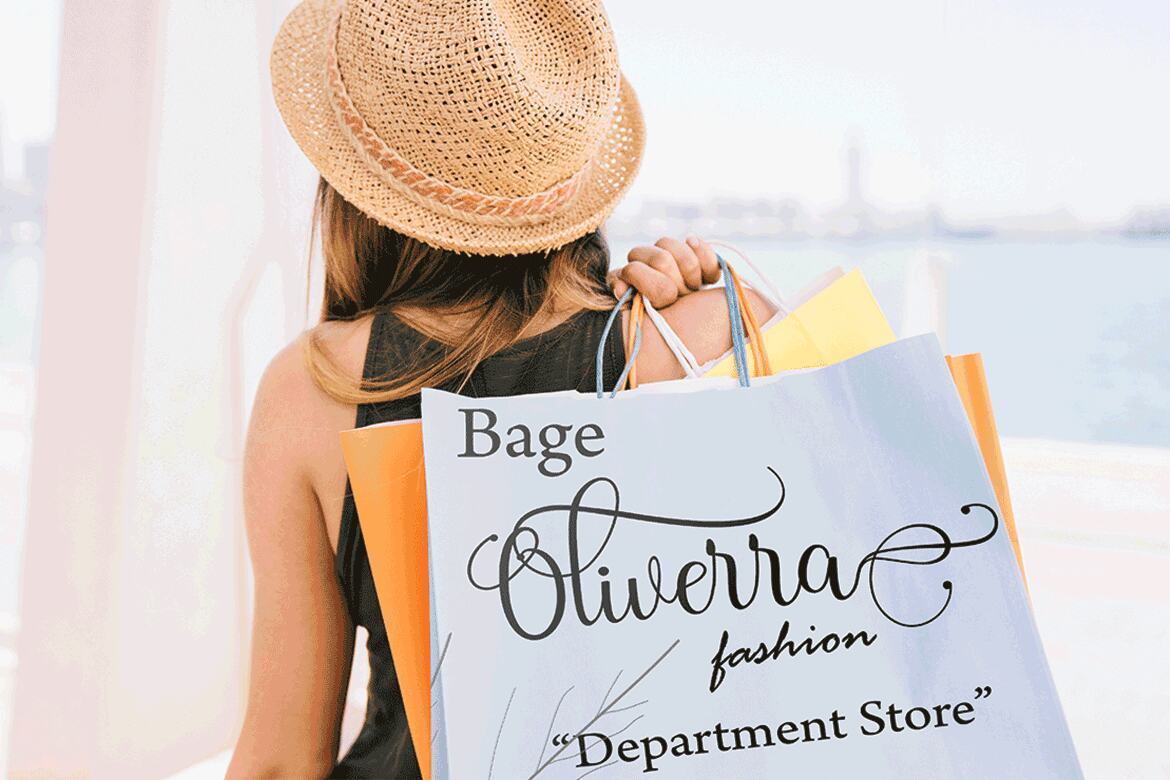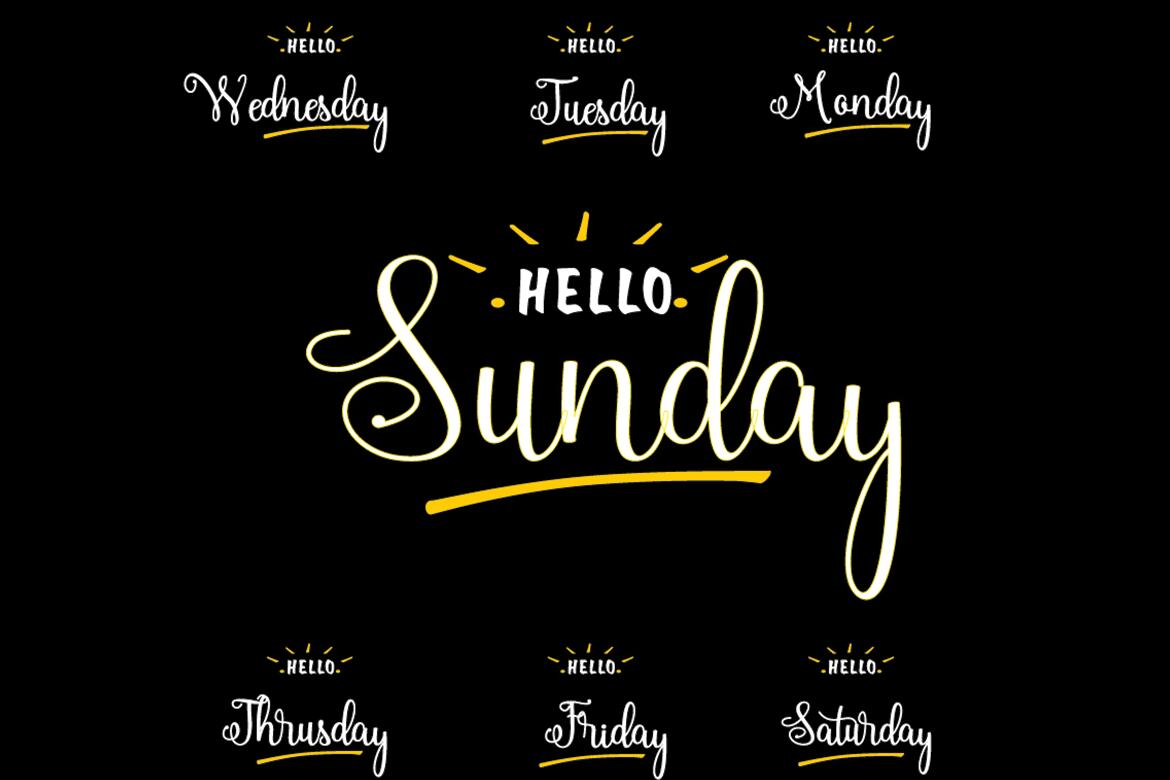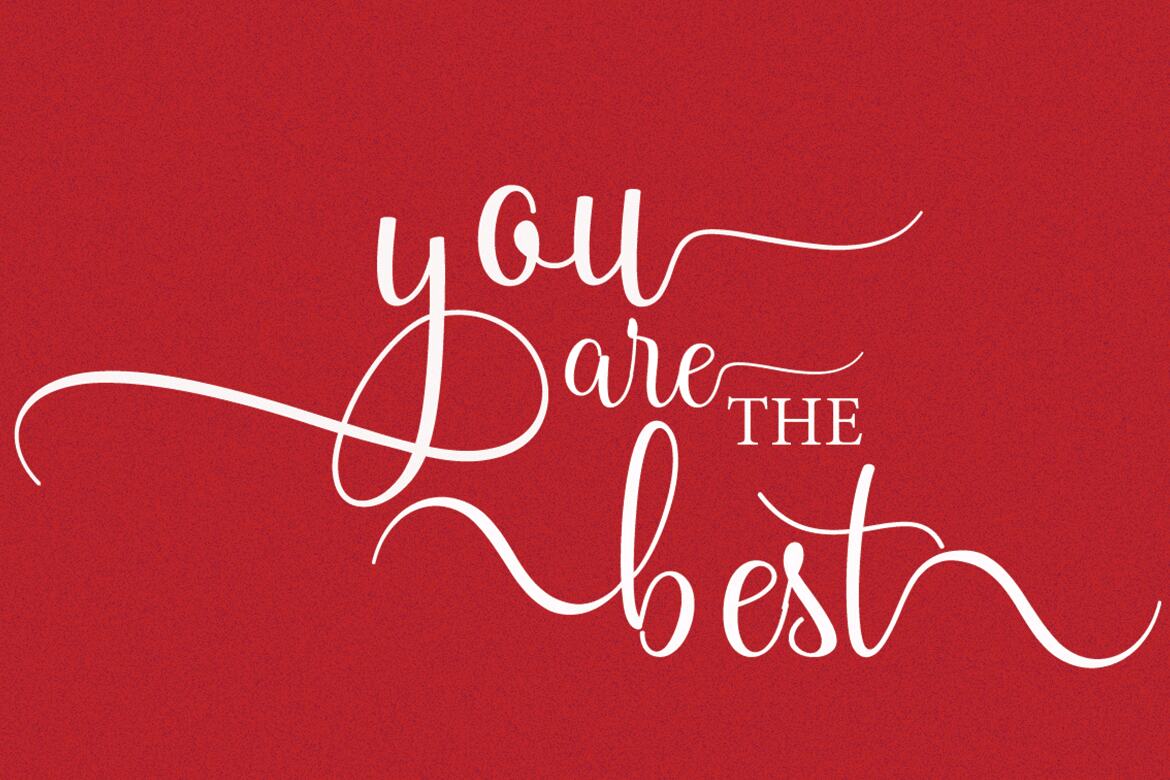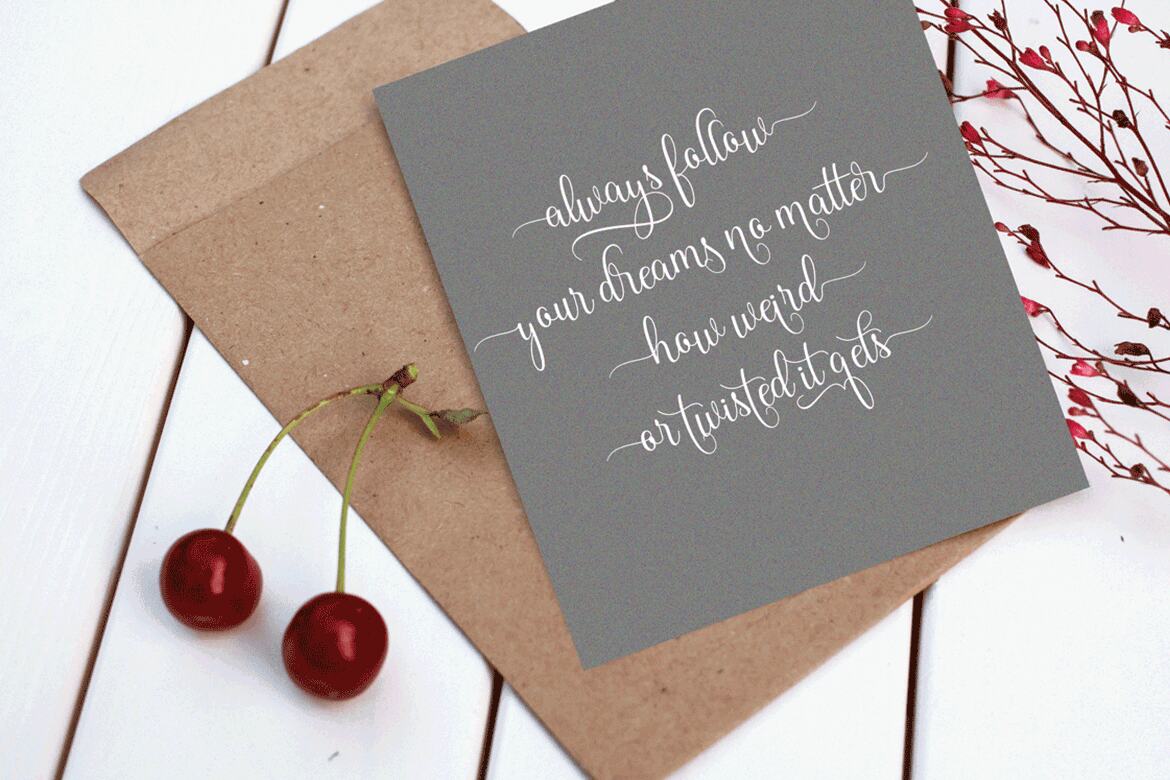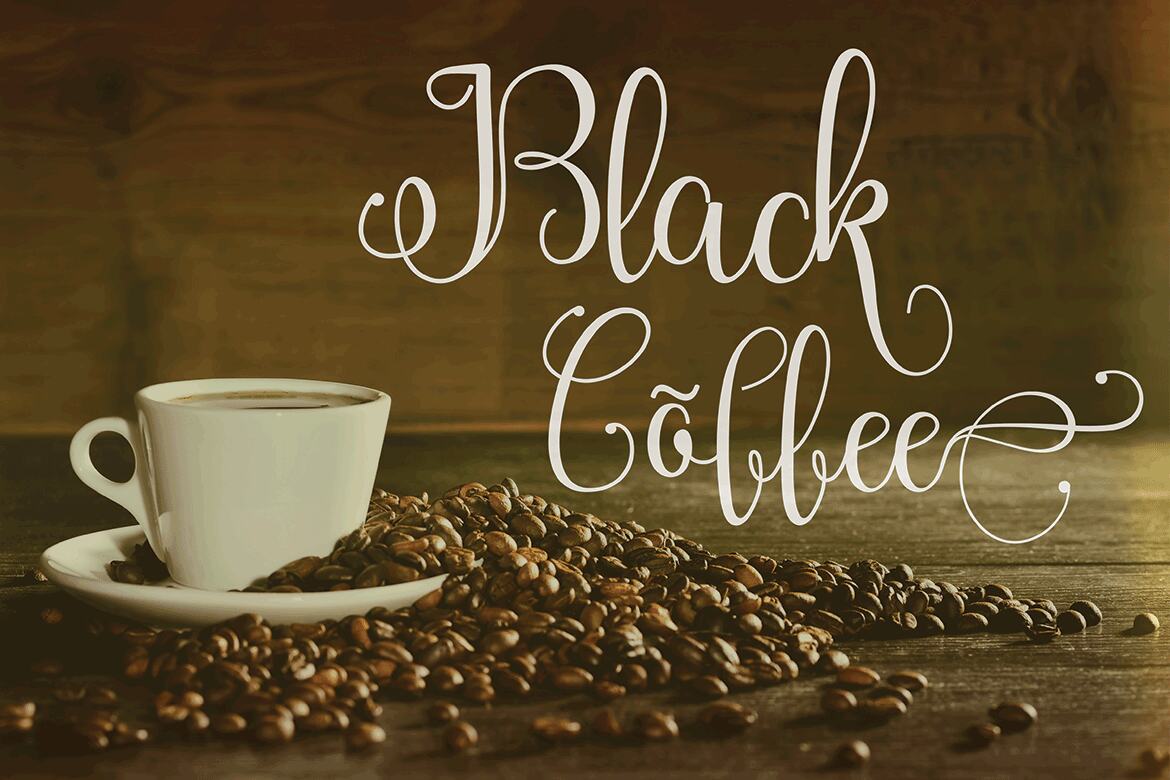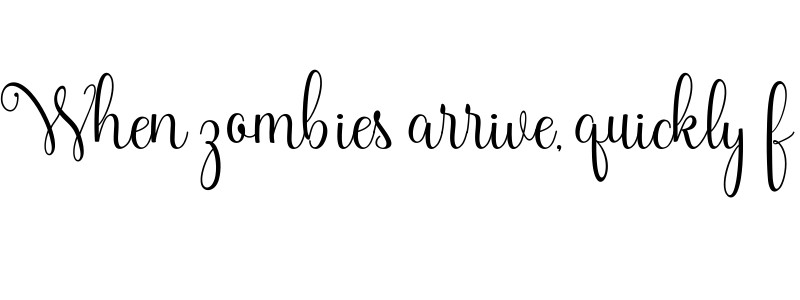
Mr.Satan FREE Script Font
Mr.Satan preview
Mr.Satan
Mrsatan Modern Calligraphy. This font was designed by handwriting, and it has a modern and unique forms of calligraphy, the writing style is very natural.
The Features of this fonts is;
• Standart ligatures
• Stylistic Alternates
• Contextual Alternates
• Stylistic sets
• alternates and ligatures